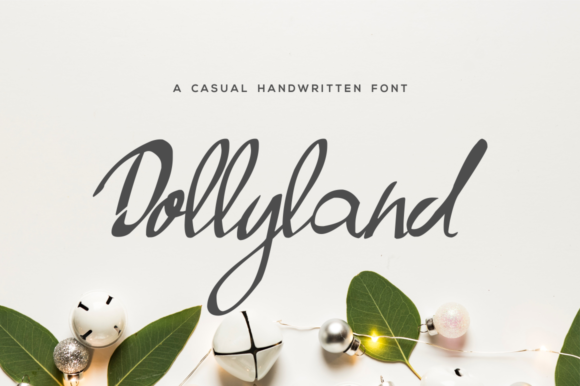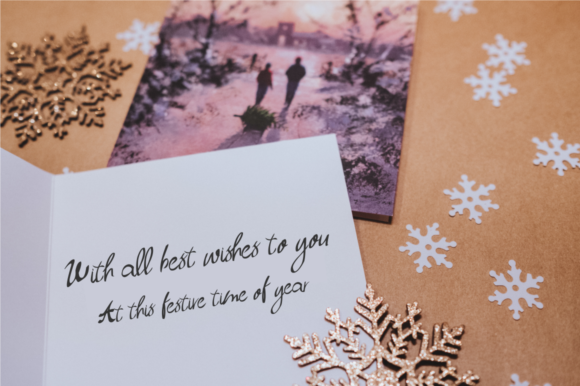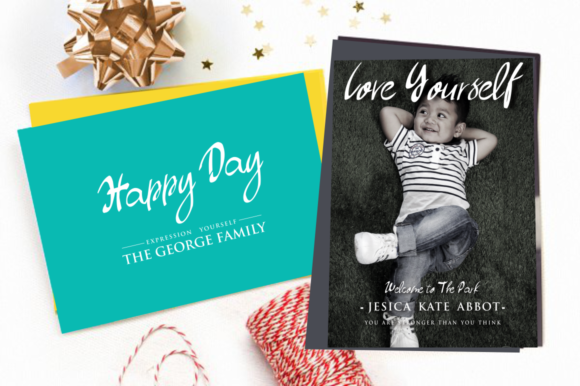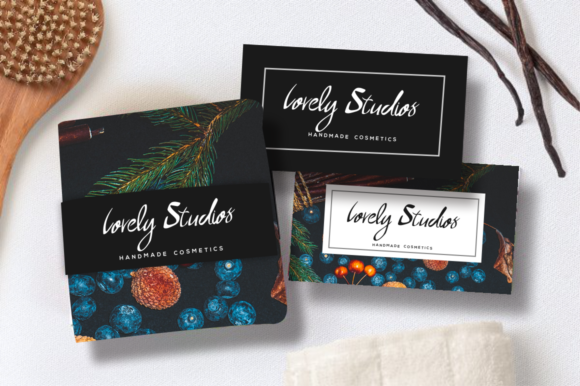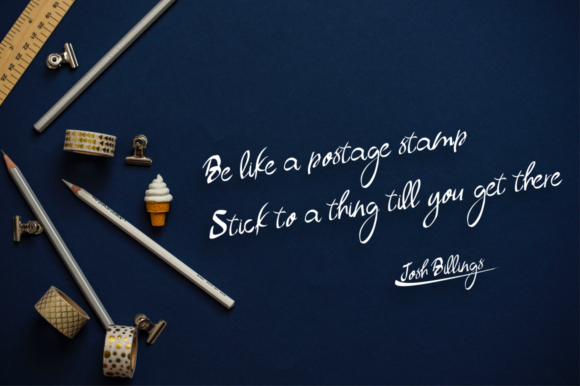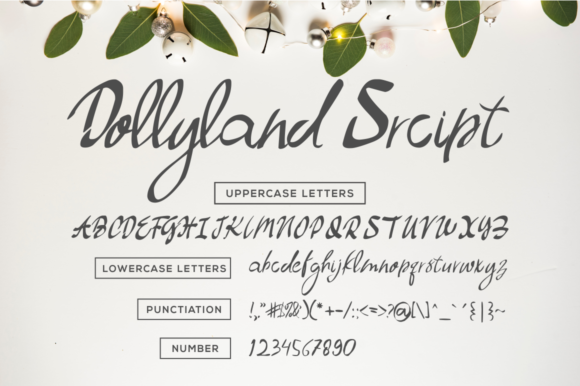
Dollyland Font
About Dollyland Font
Dollyland is a beautiful handwritten font, ideal for use in modern designs that need an authentic look. This font has a dynamic energy, and looks great in poppy, fun designs.